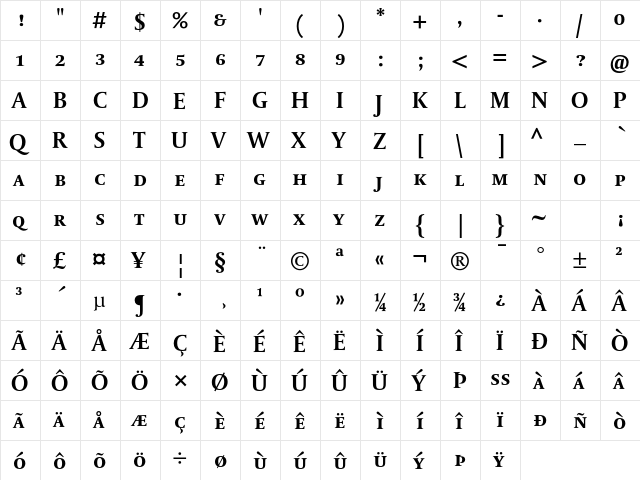
DTLParadoxTCaps Bold
Design Context for DTLParadoxTCaps Typeface
DTLParadoxTCaps takes a measured approach to typography — its balanced proportions and neutral character make it a reliable workhorse for both digital and print work. The heavy weight commands attention and anchors typographic hierarchies.